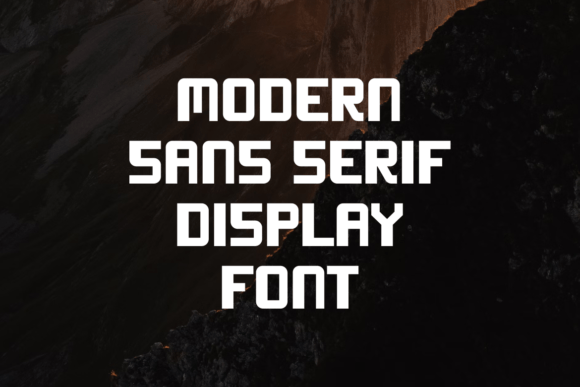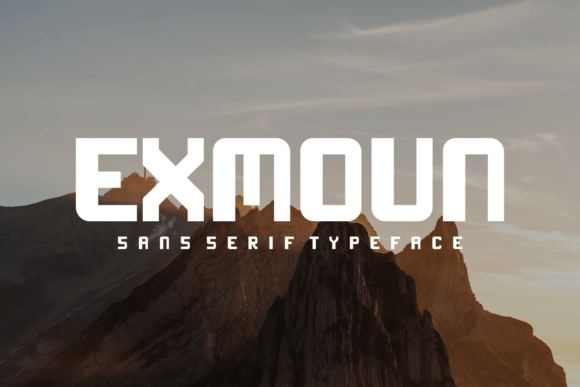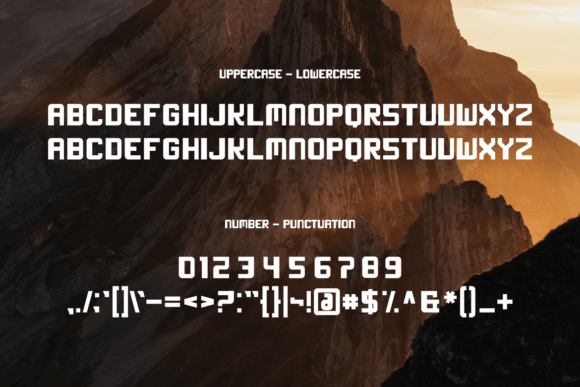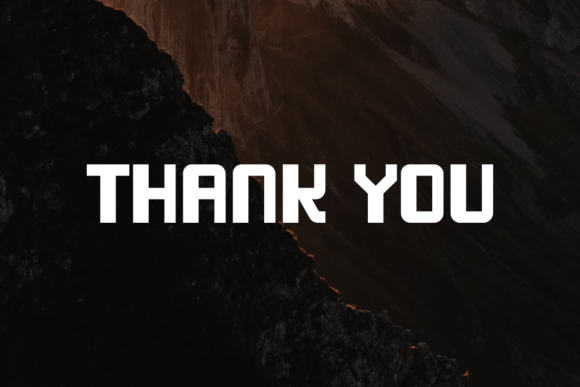
Introduction to Exmoun Font
Have you ever found yourself stuck in the midst of a creative project, desperately searching for the perfect font to elevate your design? It’s a moment we’ve all been there – the cursor blinks impatiently as you scroll through countless options, hoping to find that one font that captures the essence of your vision. For designers, a well-chosen font can be the difference between a good design and a great one.
Enter Exmoun Font, a bold and striking sans-serif font that’s sure to leave a lasting impression. With its clean, straight lines and lack of extra flourishes, Exmoun Font is perfect for titles and headlines that need to stand out from the crowd. And the best part? It’s available for free download, making it an accessible design resource for creatives of all levels.
Key Features of Exmoun Font
- High-quality font design with a transparent background, ideal for creative projects and design resources.
- Features a unique, modern design with a wide range of glyphs and characters, perfect for logos, branding, and typography projects.
- Includes a comprehensive character set, including international characters and symbols, making it a versatile design resource.
- Designed to be highly legible, even at small font sizes, making it suitable for a wide range of creative projects and applications.
Honest Review: Exmoun Font
As a designer, I’m always on the lookout for high-quality design resources to elevate my creative projects. Recently, I stumbled upon the Exmoun Font, and I must say it’s been a game-changer.
What works well: ✨ The Exmoun Font offers a clean and modern aesthetic, perfect for a wide range of design applications. The font is available for free download, which is a huge plus for designers working on a budget. I also appreciate the transparent background, which makes it easy to customize and integrate with other design elements.
Some limitations: ⚠️ While the Exmoun Font is a great addition to any designer’s toolkit, it’s not without its limitations. The font selection is relatively limited, with only a few styles to choose from. Additionally, the font may not be suitable for use in situations where a more formal or traditional look is required.
Overall, I’m thoroughly impressed with the Exmoun Font. Its modern design and free download make it an excellent choice for designers working on creative projects. Whether you’re designing a logo, brochure, or website, the Exmoun Font is definitely worth considering.
- Modern aesthetic
- Great for creative projects
Tips for getting the most out of Exmoun Font include using it with a transparent background for a sleek look, experimenting with different font sizes and styles, and combining it with other design elements for a unique effect.
The Exmoun Font is ideal for a variety of creative projects, including logos, business cards, social media graphics, and presentations. Its high-quality design makes it perfect for professional and personal use.